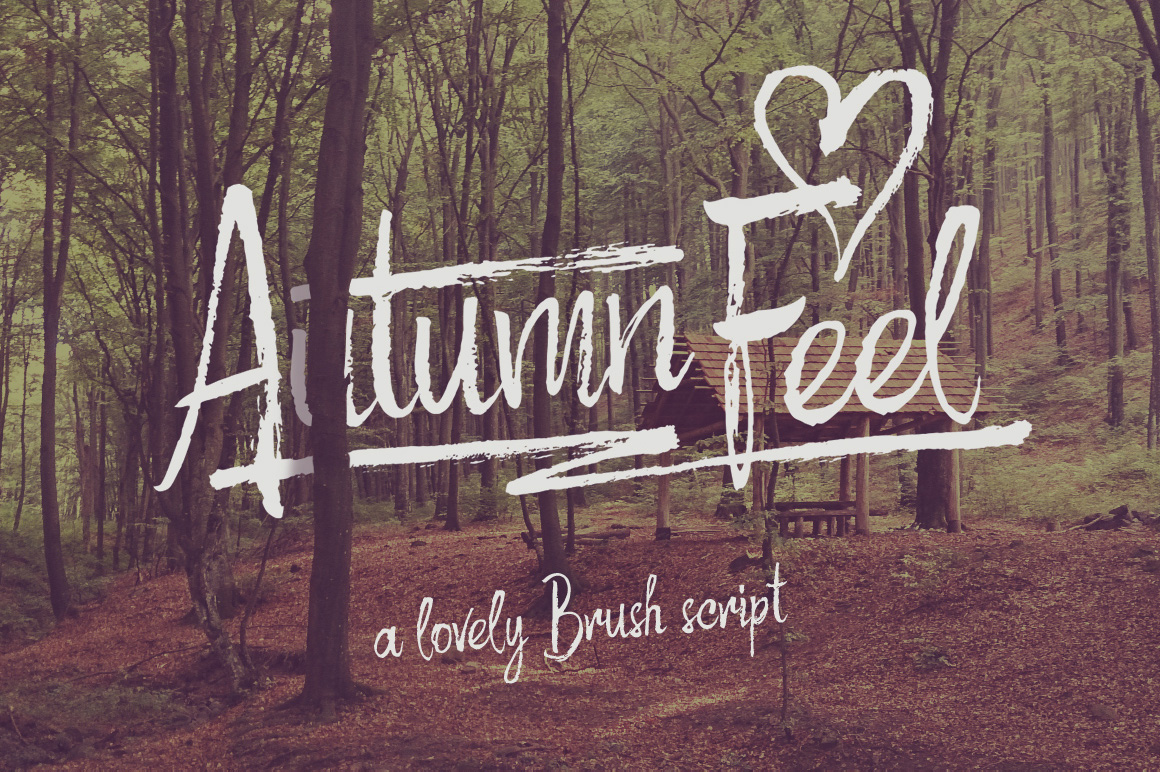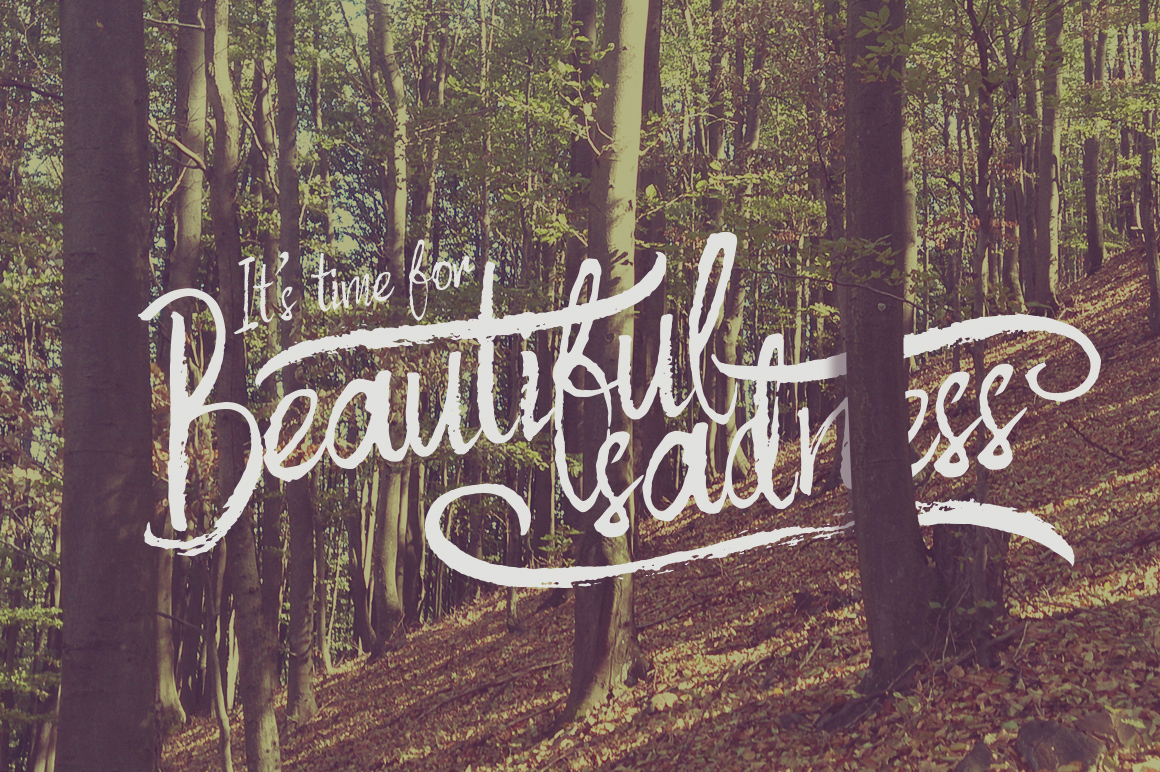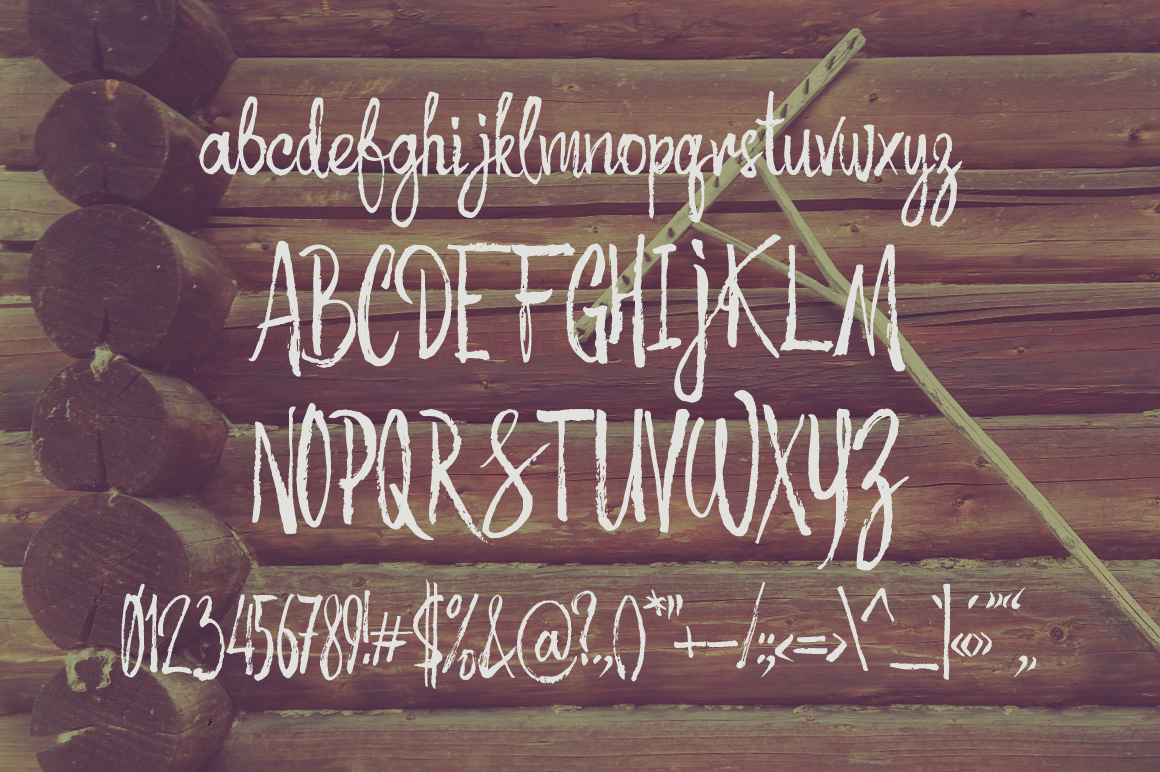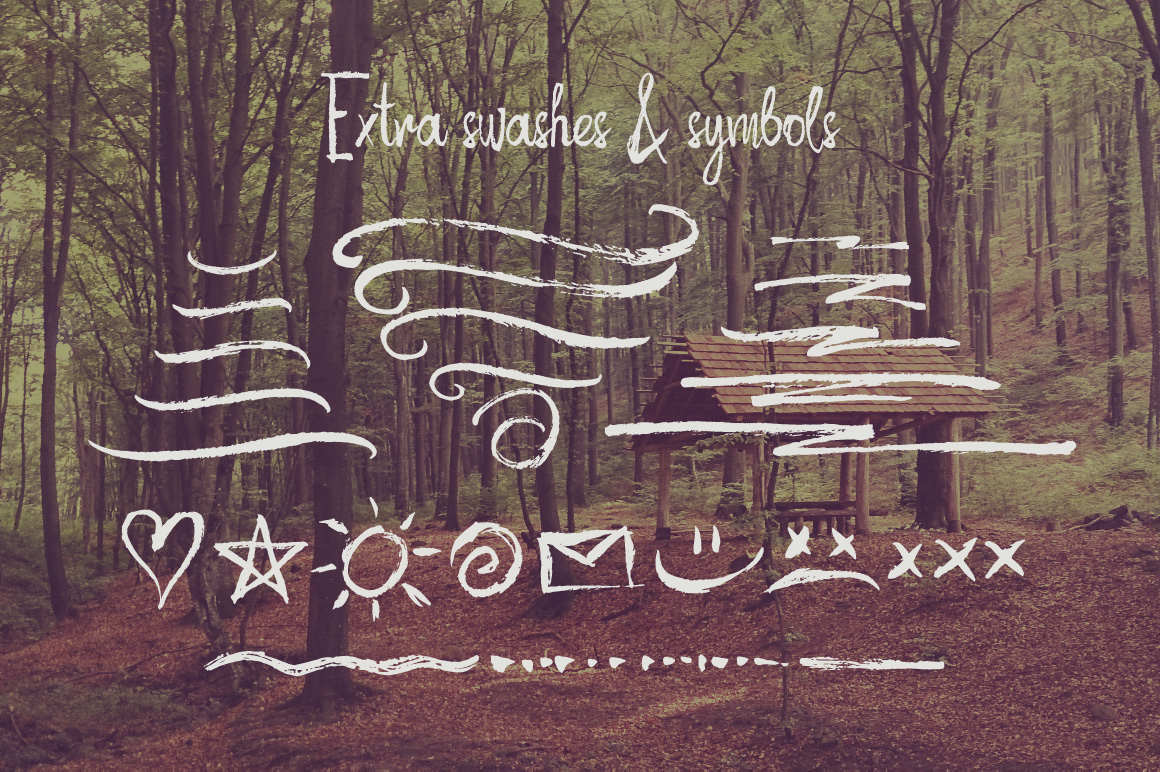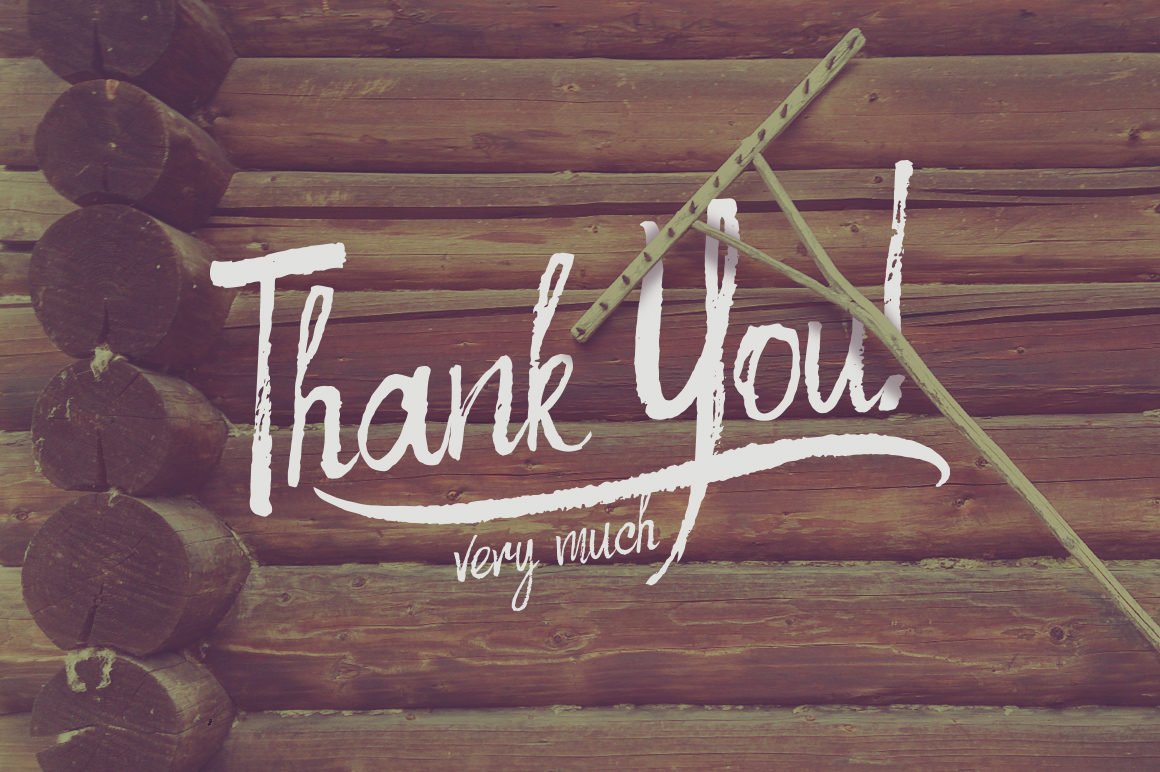
Autumn Feel Font
Autum Feel is a hand drawn sfont that was created with a dry brush.
The Autumn Feel font comes with an extras font (Autumn Feel Extras) that contains various swashes and dynamic strokes.